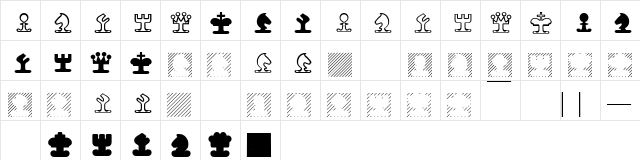
XSeederChess Regular
Design Context for XSeederChess Typeface
XSeederChess is a composed and adaptable typeface that performs quietly and consistently across a wide range of design contexts.